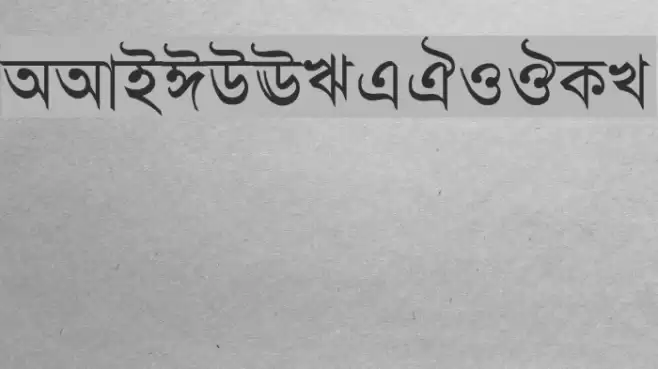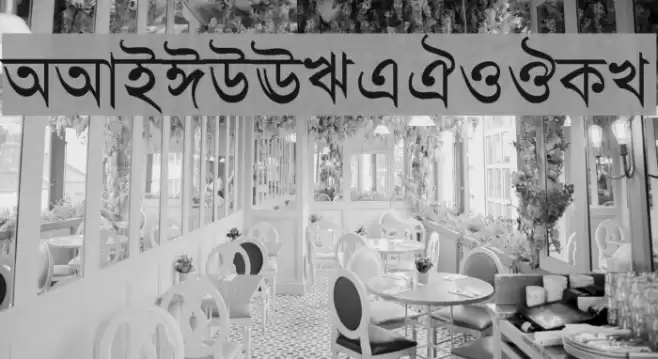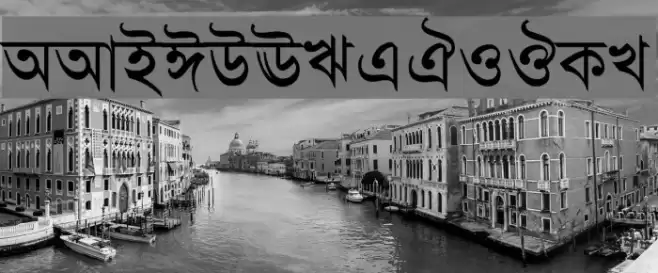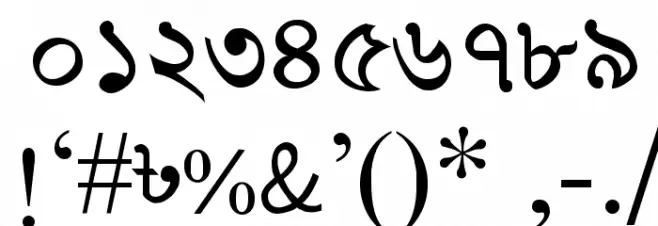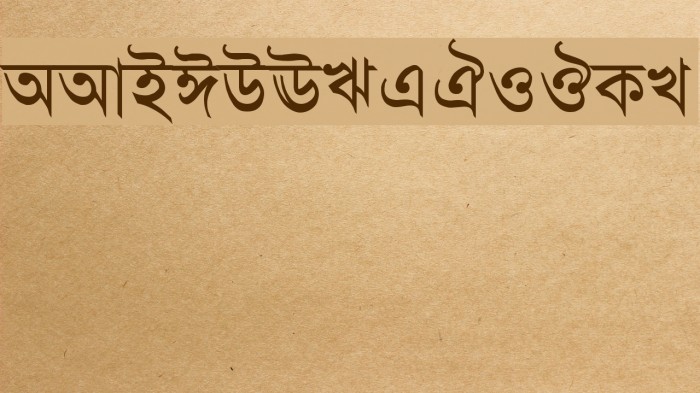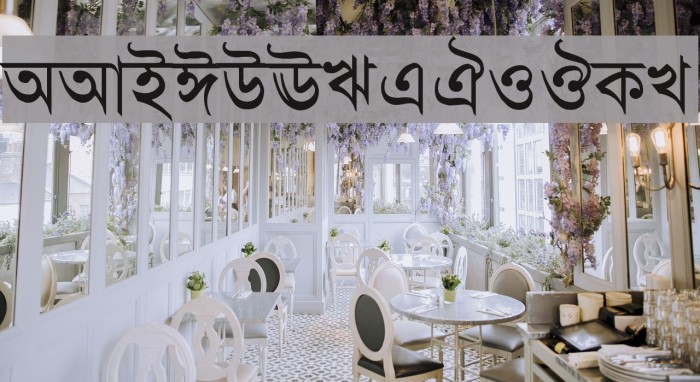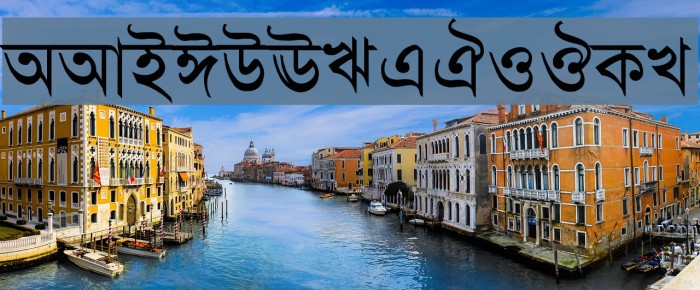
AdarshaLipiNormal Font
AdarshaLipiNormal Description
This font is a traditional Bengali script that features a classic and elegant design. The characters are well-defined with a moderate stroke contrast, giving it a balanced and readable appearance. The script includes a full set of Bengali letters, numerals, and a variety of punctuation marks. The design is characterized by its flowing curves and sharp angles, which add a touch of sophistication. The spacing between characters is normal, ensuring clarity and legibility in both small and large sizes. This font is suitable for a range of applications, from formal documents to creative projects, where a touch of cultural authenticity is desired.
A classic Bengali script font with elegant curves and moderate contrast from Uncategorized fonts.
- Proposed Projects: Ideal for cultural publications, educational materials, and artistic projects requiring Bengali script.
- Overall Style: Classic
- Use Case: Body text, Headlines, Cultural projects